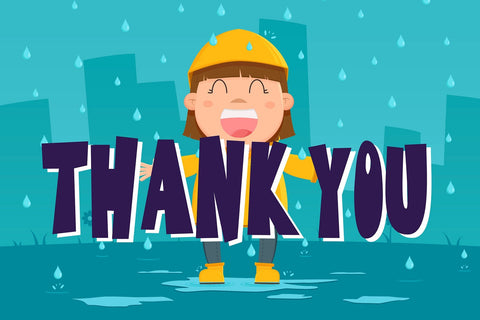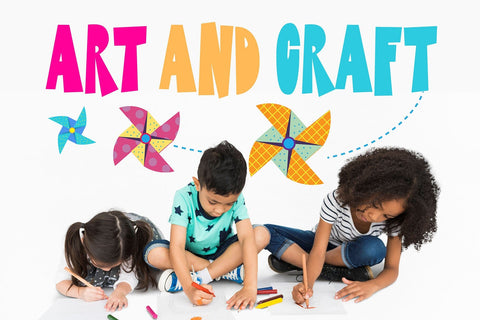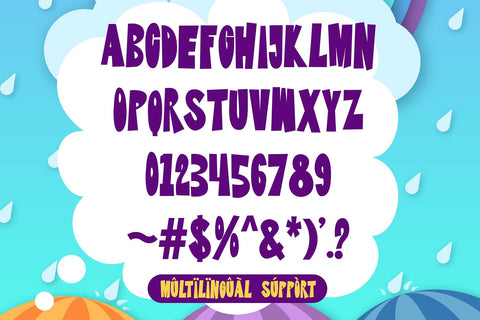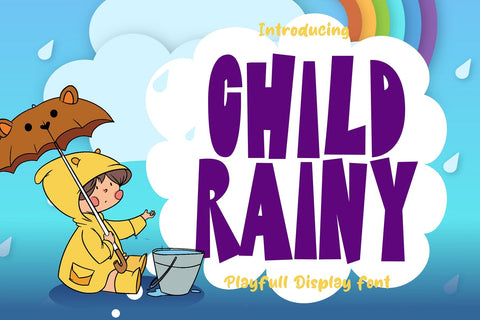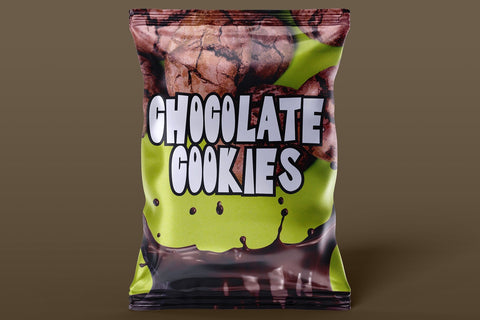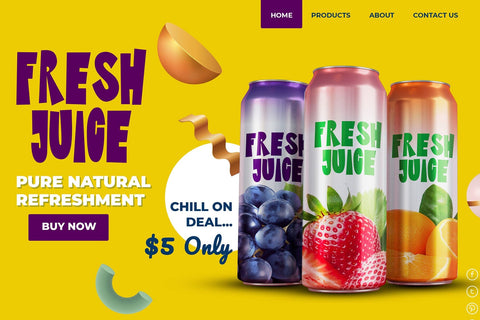
Child Rainy - Playful Display Font
"Child Rainy" is a charming and whimsical display font characterized by its cute and quirky nature, featuring sharp corners in every letterform. Fonts with sharp corners often exhibit a playful yet edgy design, adding a unique and distinctive touch to the characters.